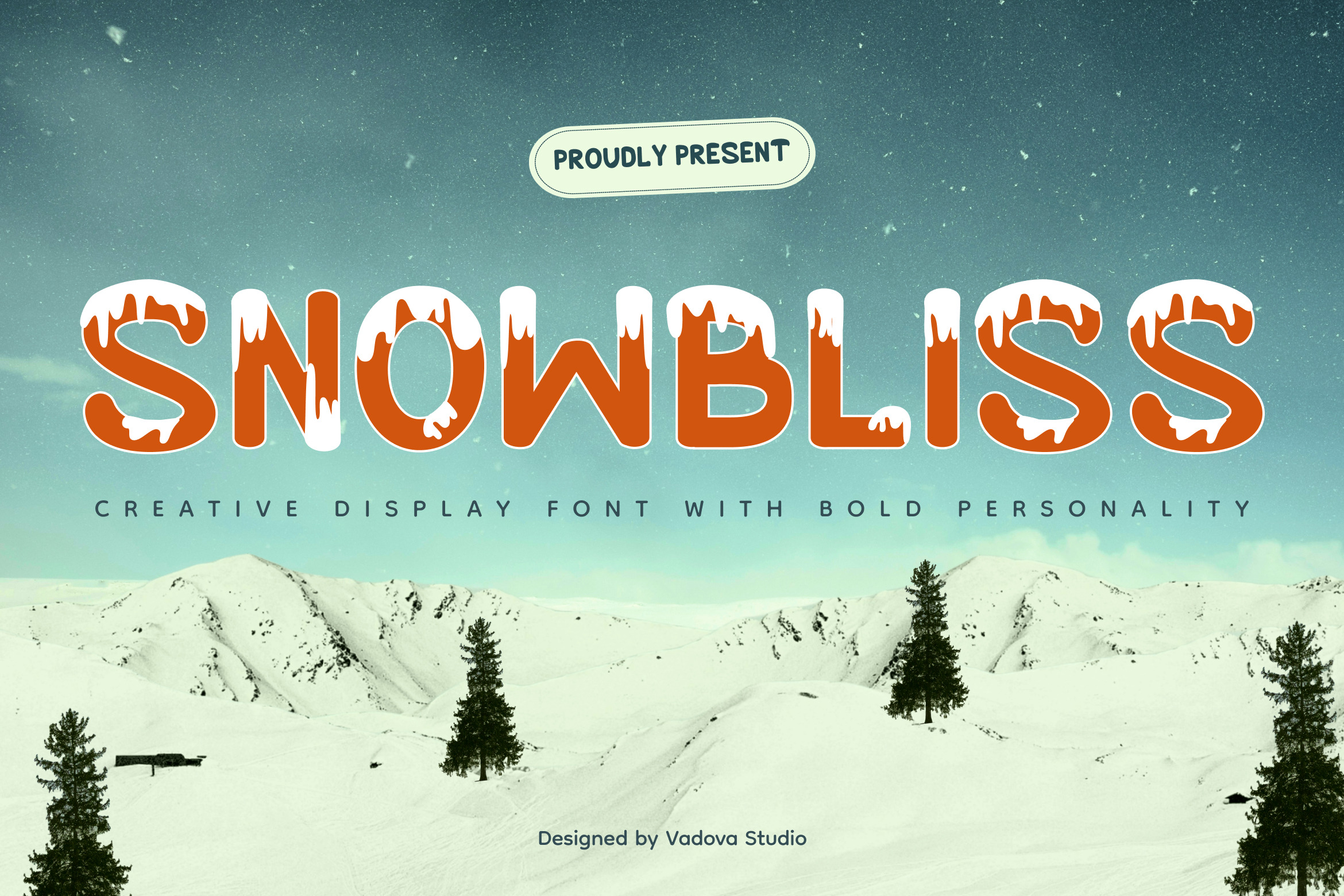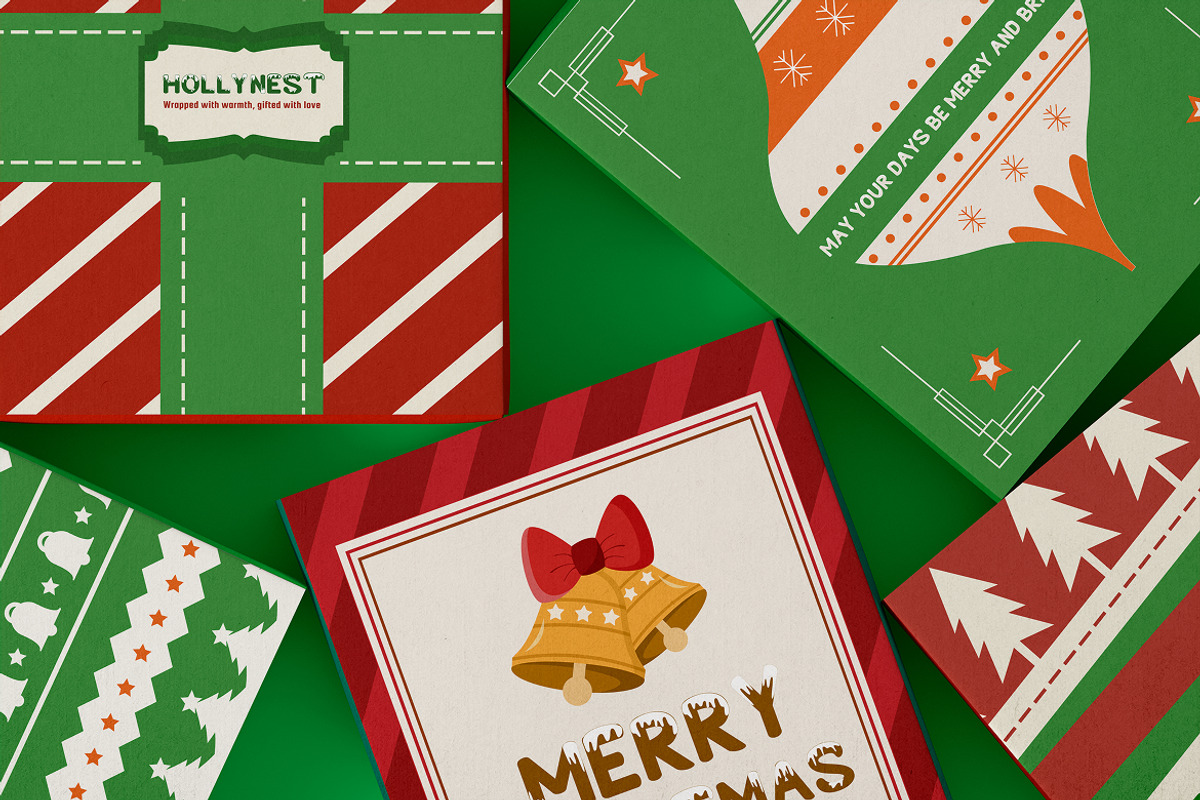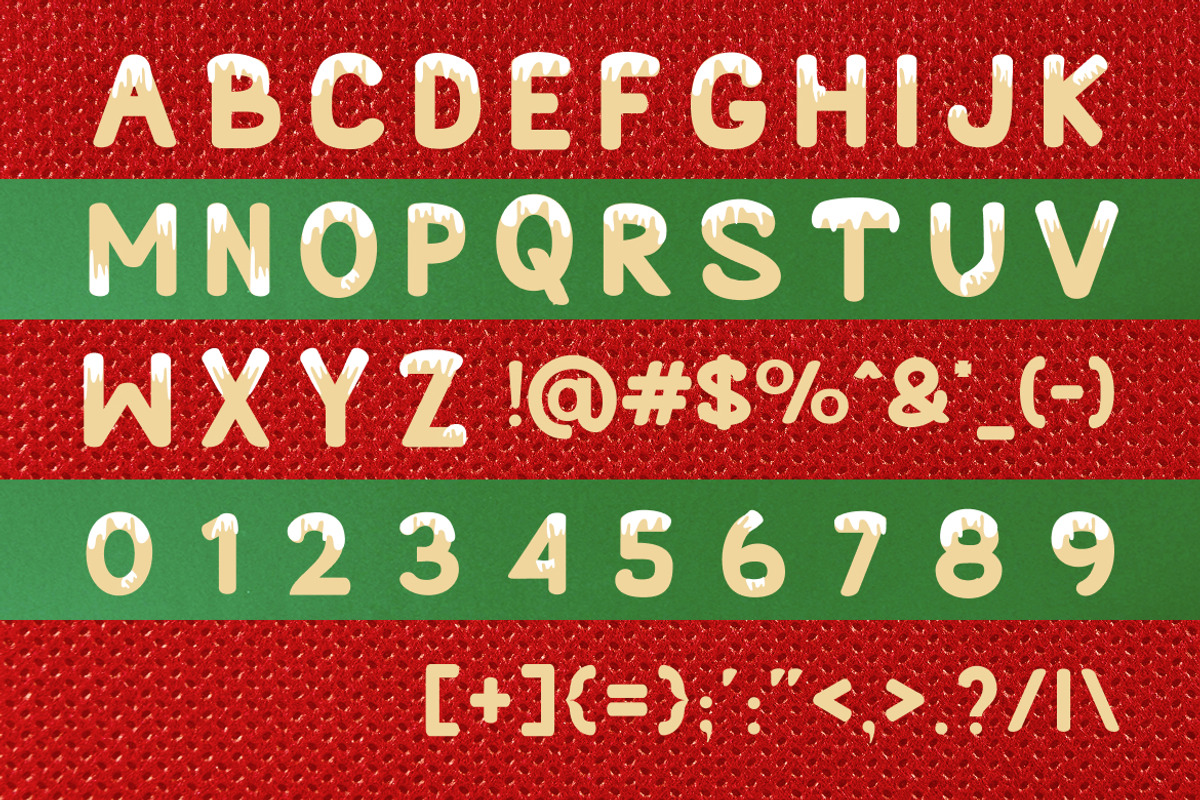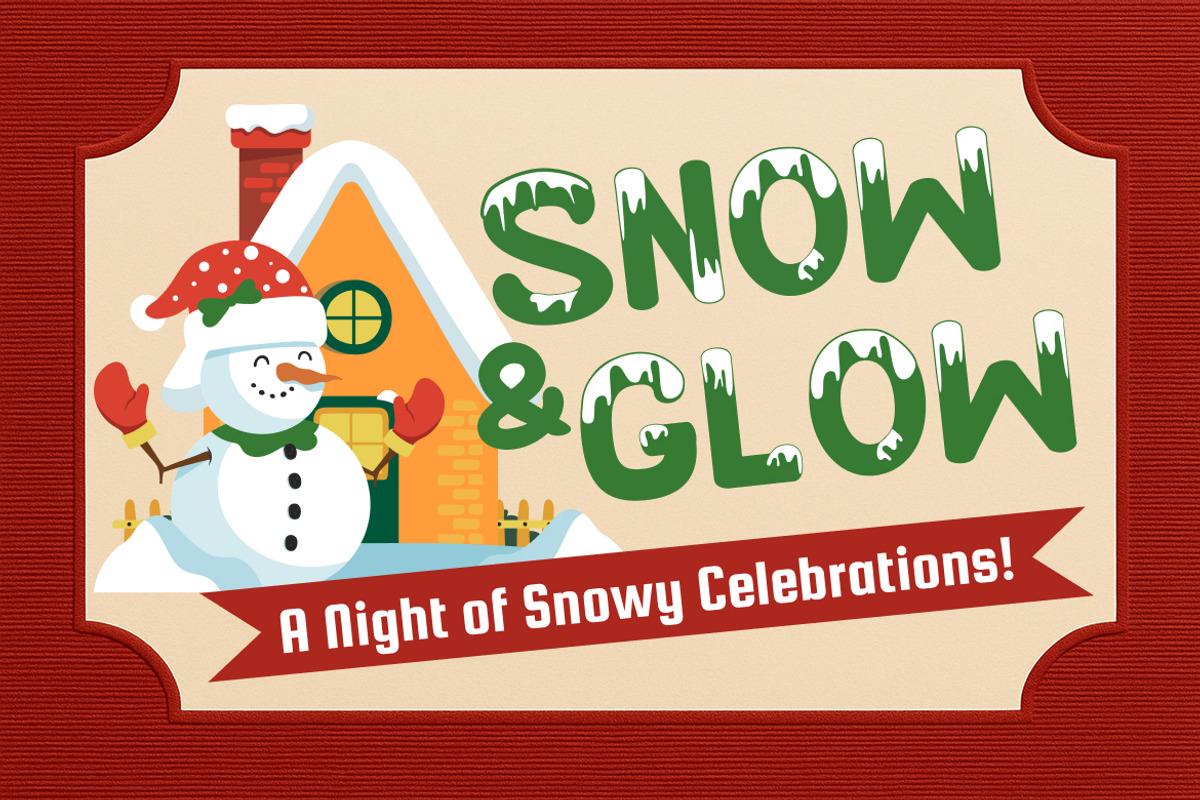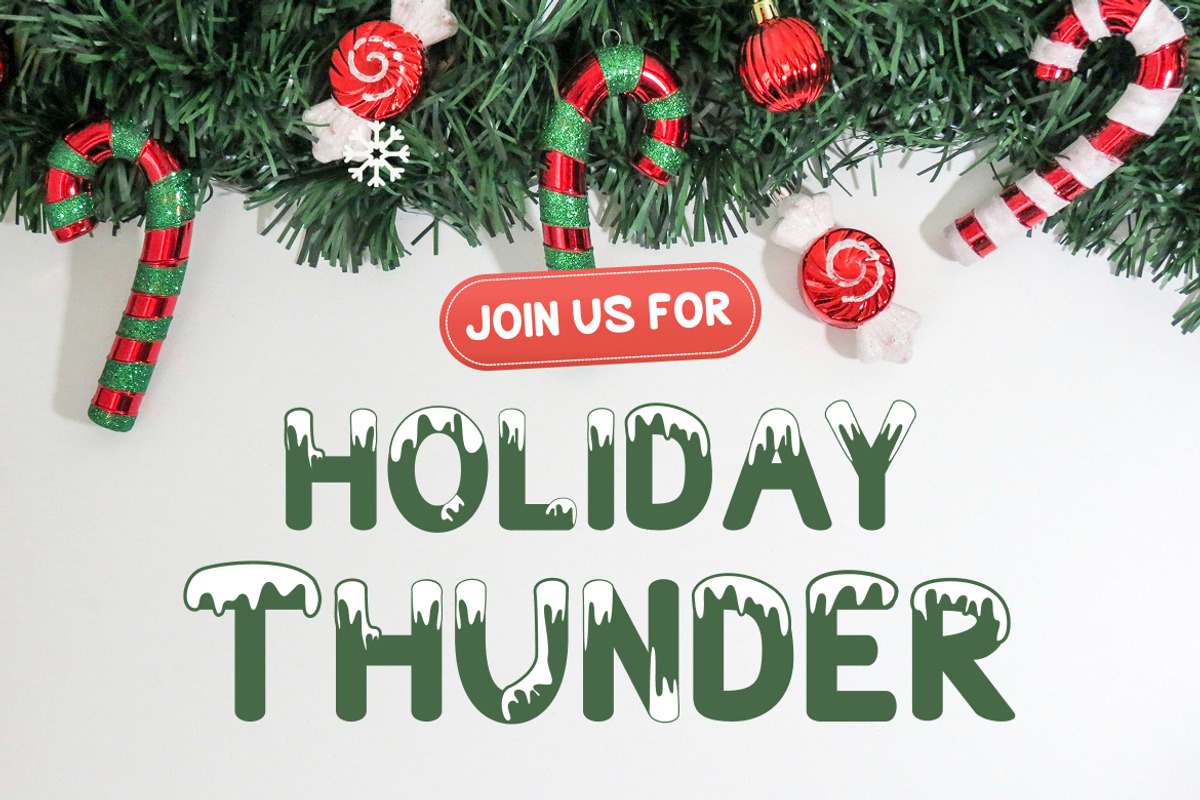
Snowbliss – Winter Display Font
Snowbliss is a bold and creative display font inspired by the charm of winter and Christmas. Each letter is topped with realistic snow-layer effects, giving the typeface a frosted and cozy personality that brings cold-season vibes to life. Its rounded, joyful form captures the warmth and wonder of snowy holidays — perfect for seasonal branding, invitations, posters, and merchandise.
Designed to stand out in festive compositions, Snowbliss offers both creativity and clarity, making it ideal for projects that celebrate the spirit of joy, snow, and winter wonder.
Font Highlights
Uppercase & lowercase letters
Numerals and punctuation
Unique snow-layer texture on each character
Bold, rounded, and highly legible design
Why Designers Love Snowbliss
Winter Personality – Frosted snow effect built directly into the font layers.
Bold & Cheerful – Combines festive charm with confident display presence.
Ready for Holiday Designs – Instantly transforms layouts with seasonal atmosphere.
Versatile Creativity – Perfect for print, packaging, and digital greetings.
Best Applications
Christmas greeting cards and banners
Winter festival posters and flyers
Holiday merchandise and apparel prints
Seasonal branding and logo design
Snow-themed packaging and product labels
Social media promotions for winter campaigns
Celebrate the joy of the season with Snowbliss — a frosted display font that brings festive warmth to every design.